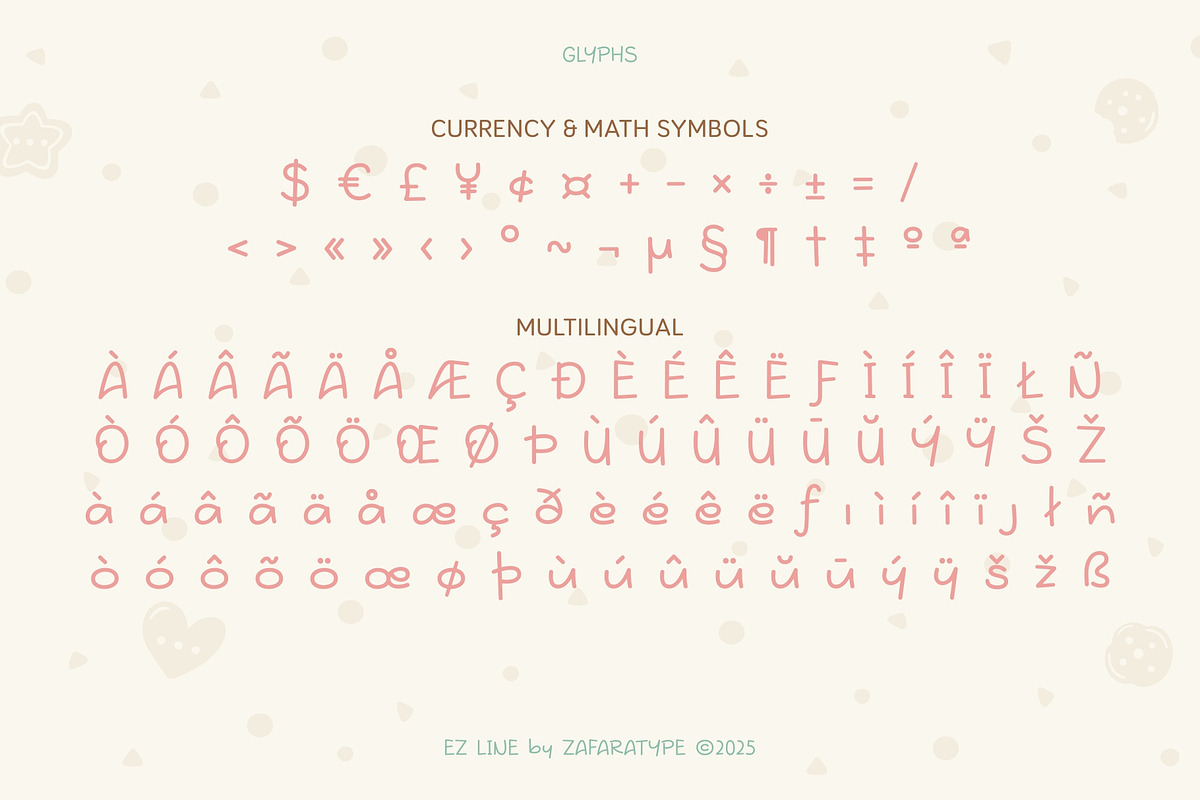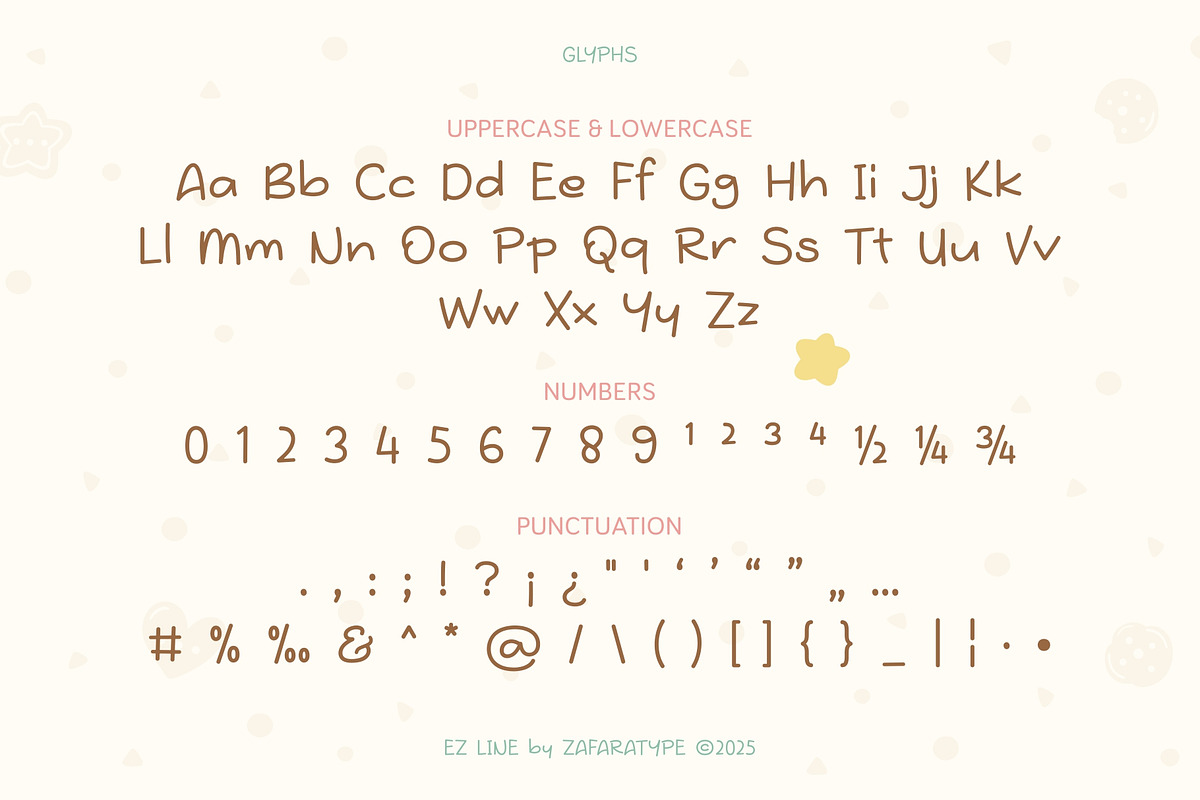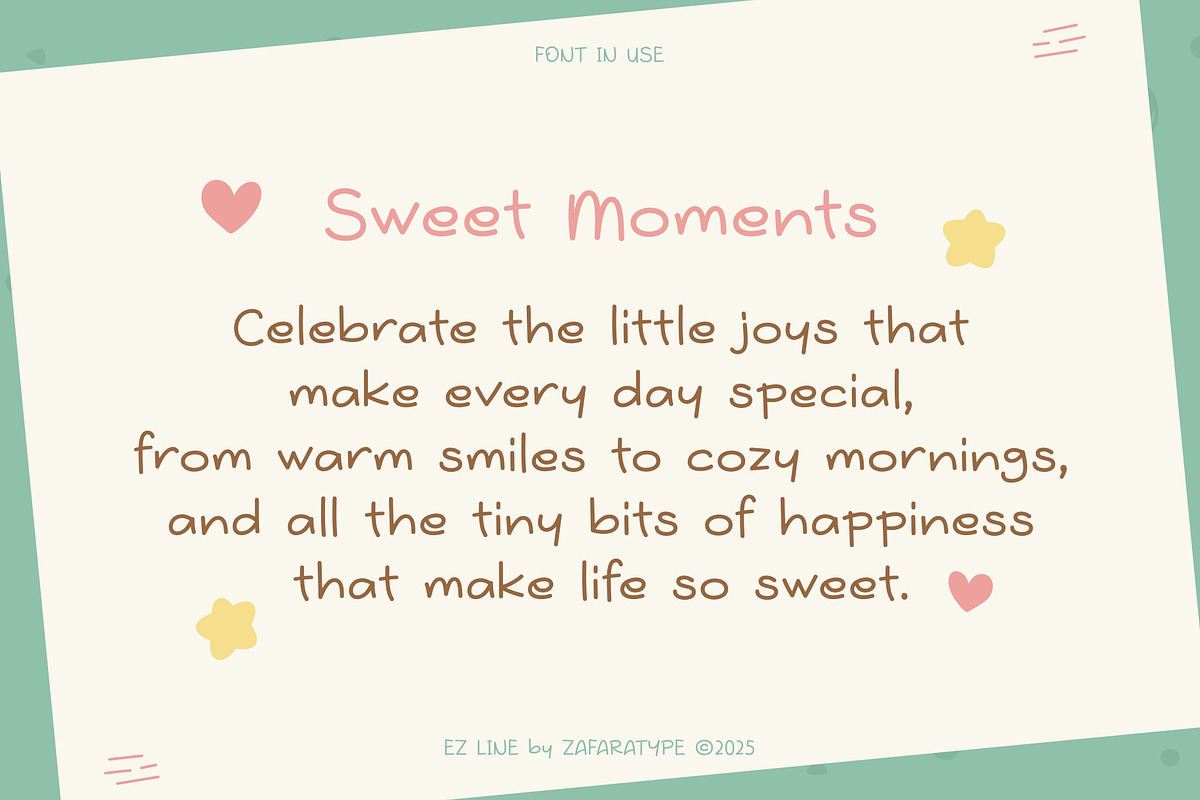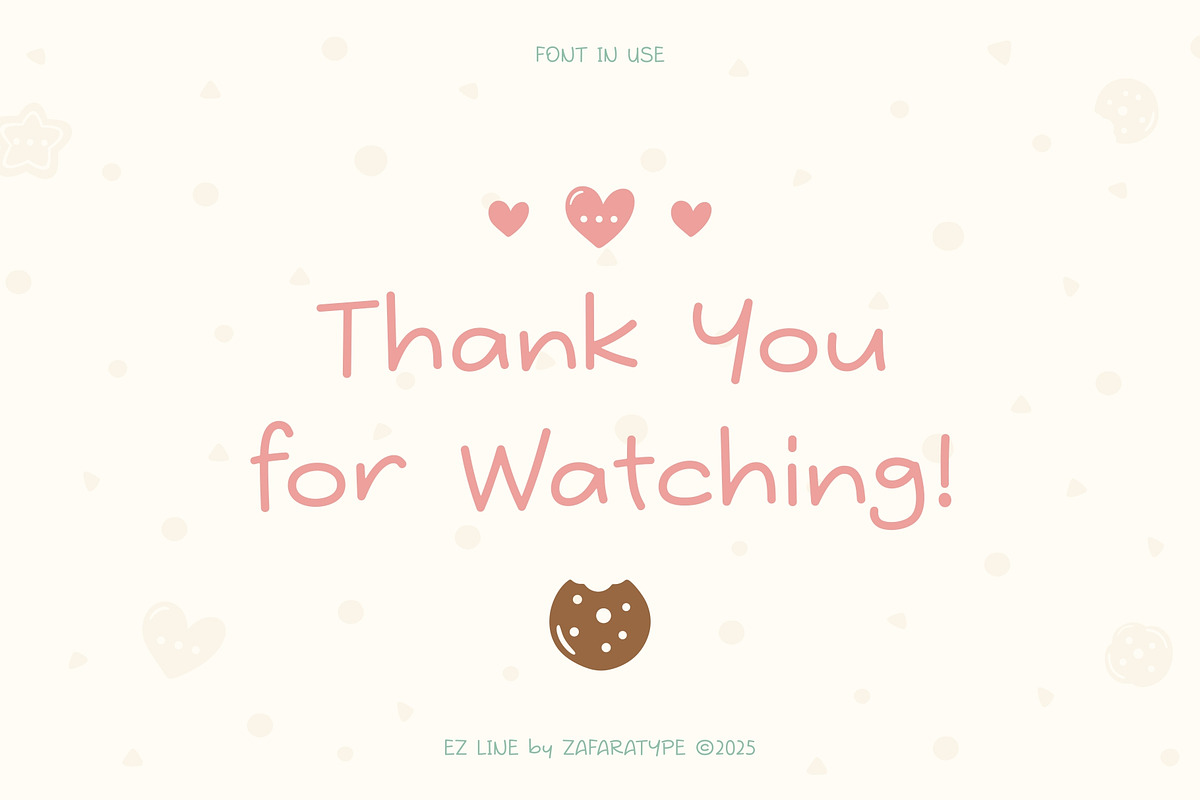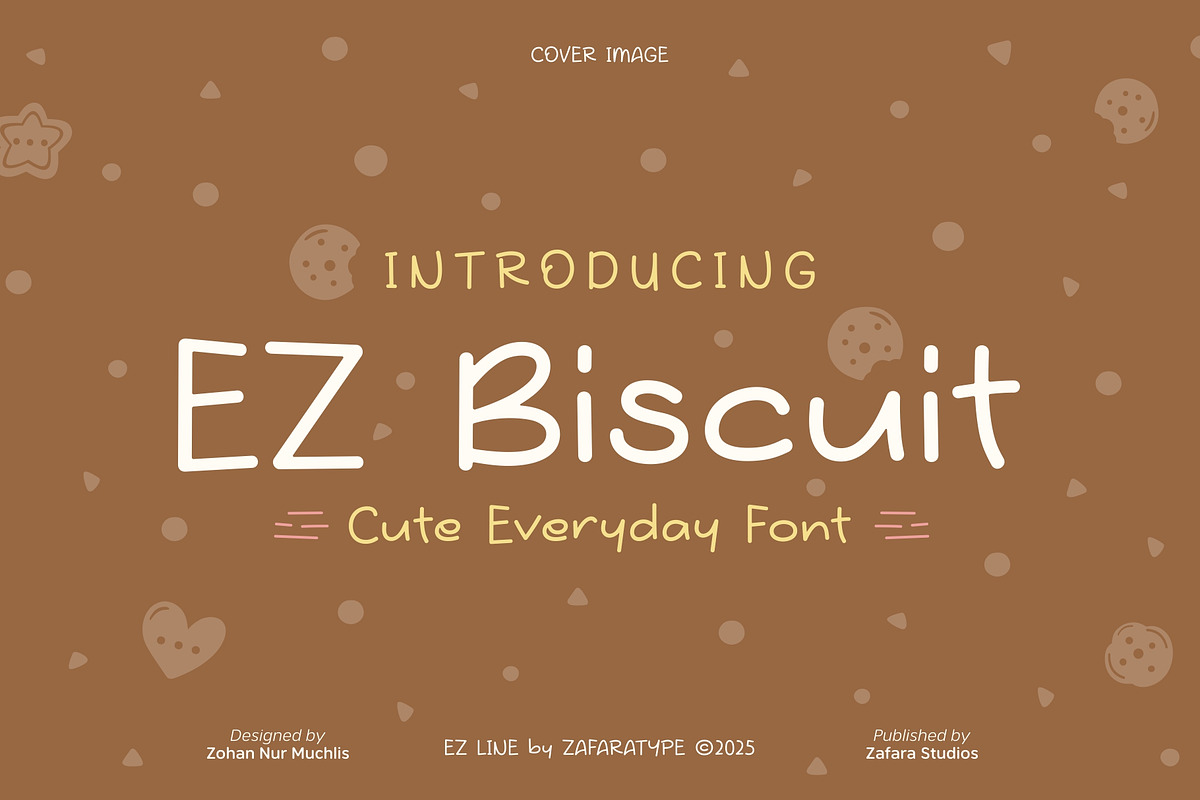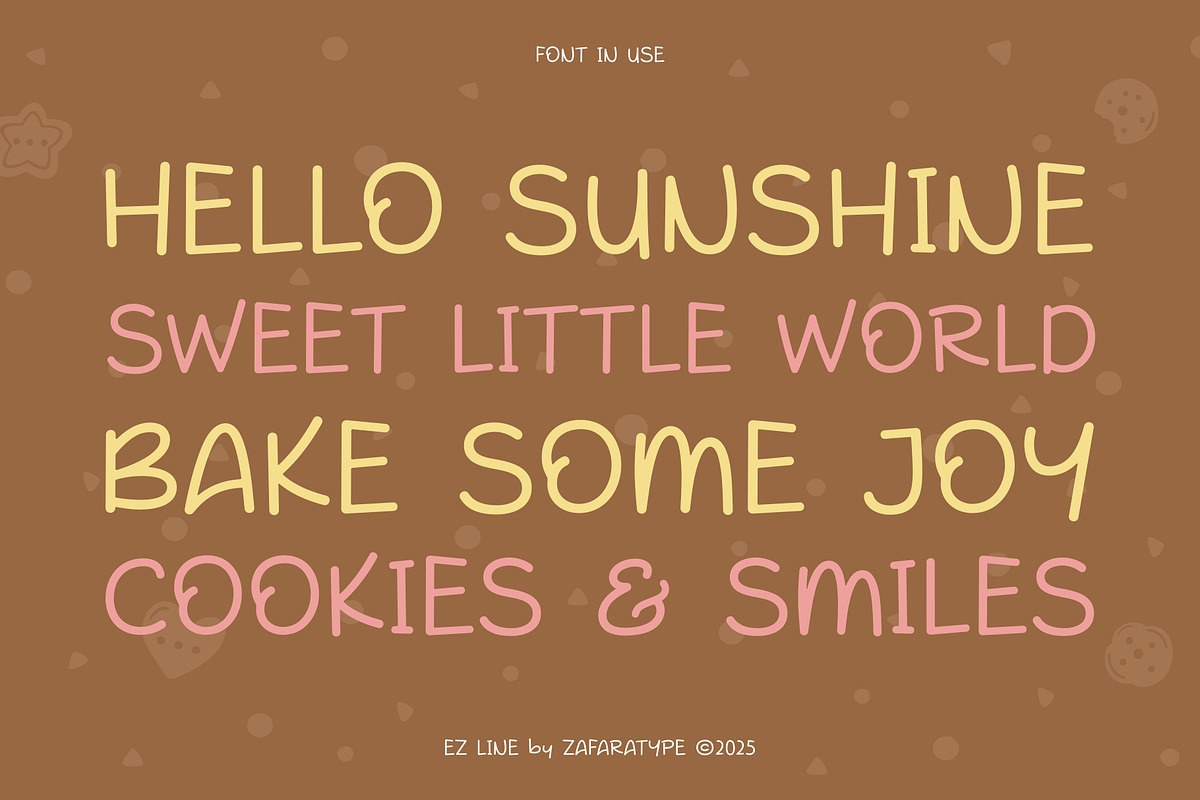
EZ Biscuit
EZ Biscuit is a cute and casual handwritten font that captures the warmth and charm of everyday creativity. With its rounded shapes and playful rhythm, EZ Biscuit brings a friendly, hand-drawn touch to your designs, perfect for spreading smiles and positive vibes.
Ideal for quotes, logos, packaging, journals, greeting cards, and children’s projects. Whether you’re crafting something sweet or simply fun, EZ Biscuit adds a soft and cheerful personality to every word.
The details:
- 243 glyphs: Uppercase & lowercase, Numbers & punctuation, Symbols & accents, Multilingual support
- 25 languages: Afrikaans, Albanian, Basque, Catalan, Danish, Dutch, English, Estonian, Faroese, Filipino, Finnish, French, Galician, German, Icelandic, Indonesian, Irish, Italian, Malay, Norwegian Bokmål, Portuguese, Spanish, Swahili, Swedish, Zulu